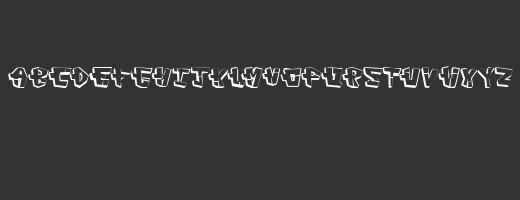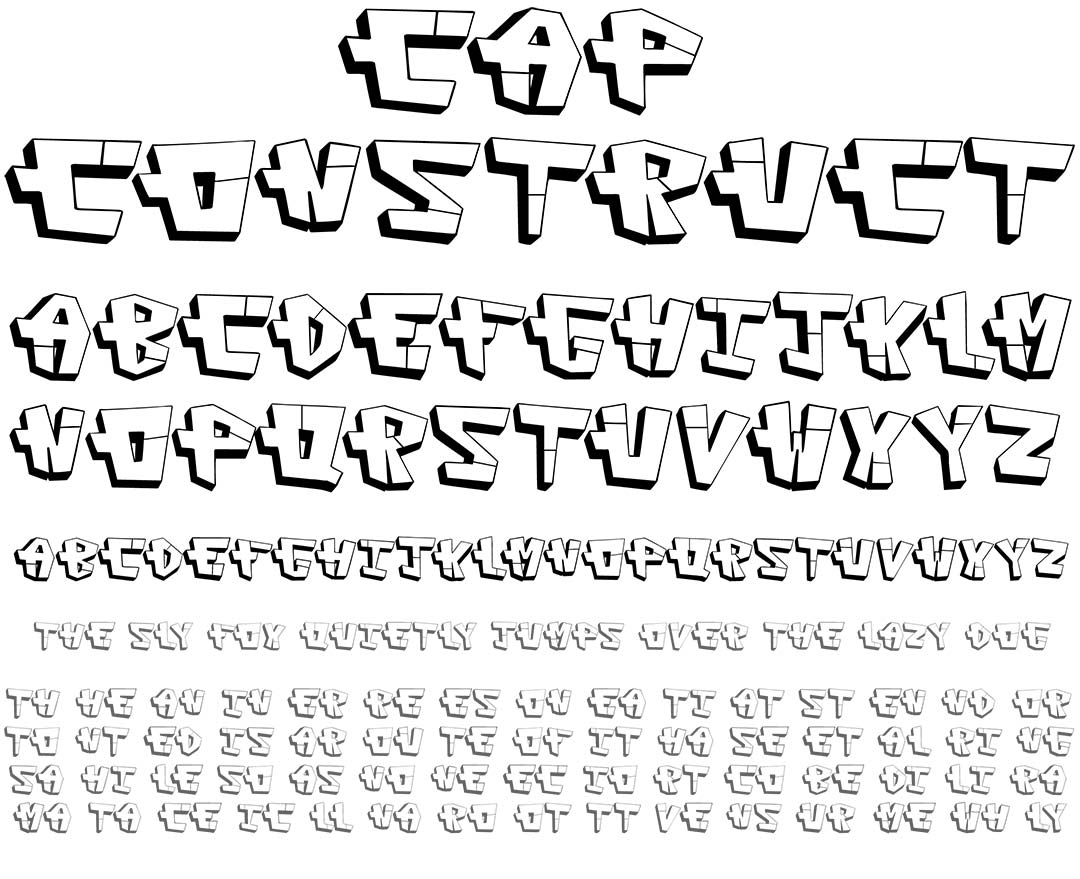
Though not originally constructed as a graffiti font Cap Construct has been used to represent graffiti since the fonts creation in 1999. The characteristic cuts along with the offset outline gave the font the distinct look of simple graffiti.